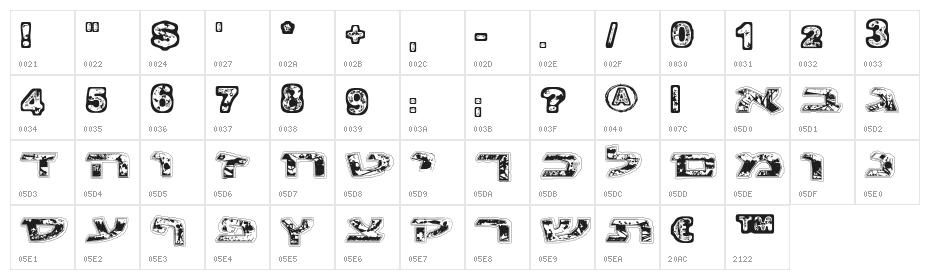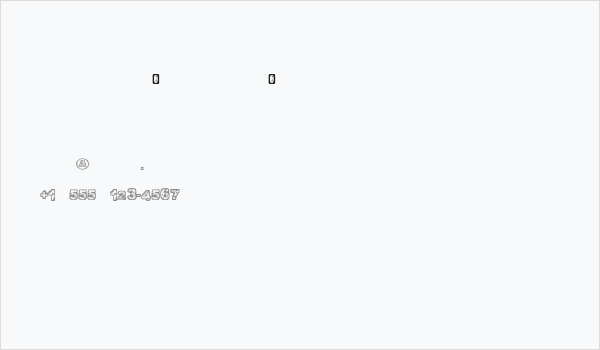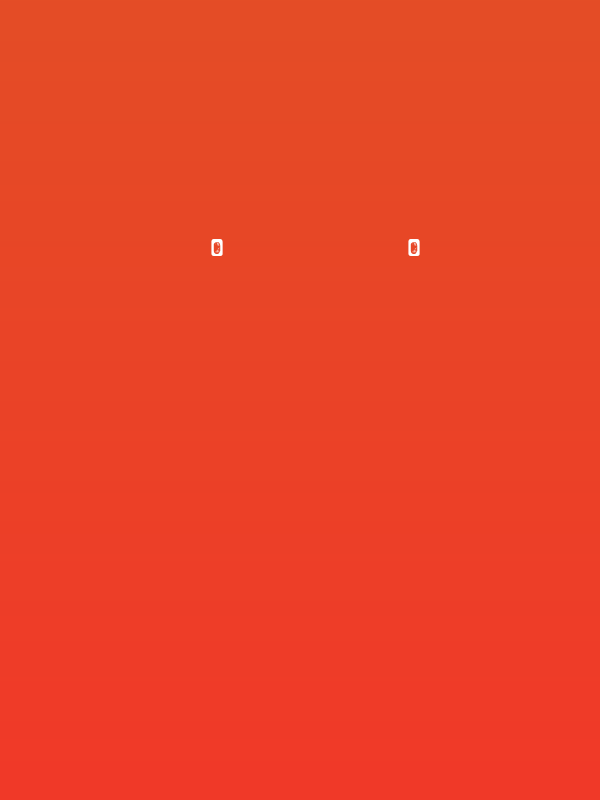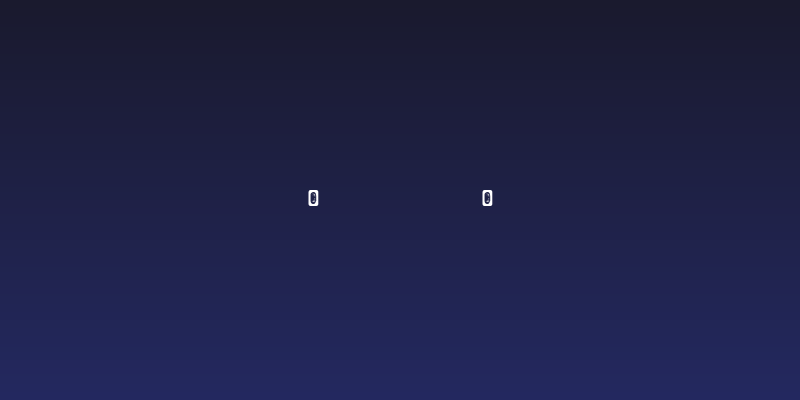
Hummus, Chips, Salat Font
Hummus, Chips, Salat Description
This font features a bold and distressed style, characterized by its rough, textured appearance. The numbers and special characters are designed with a grunge effect, giving them a worn, vintage look. The thick strokes and uneven edges add to the rugged aesthetic, making it ideal for projects that require a strong, impactful visual presence. The font's unique style is perfect for creating eye-catching designs that stand out. Its boldness and texture make it suitable for various creative applications, from posters and flyers to branding and packaging. The distressed effect adds a layer of depth and character, making each character appear unique and handcrafted.
| Proposed Projects | Ideal for posters, flyers, branding, packaging, and any design needing a strong, vintage look. |